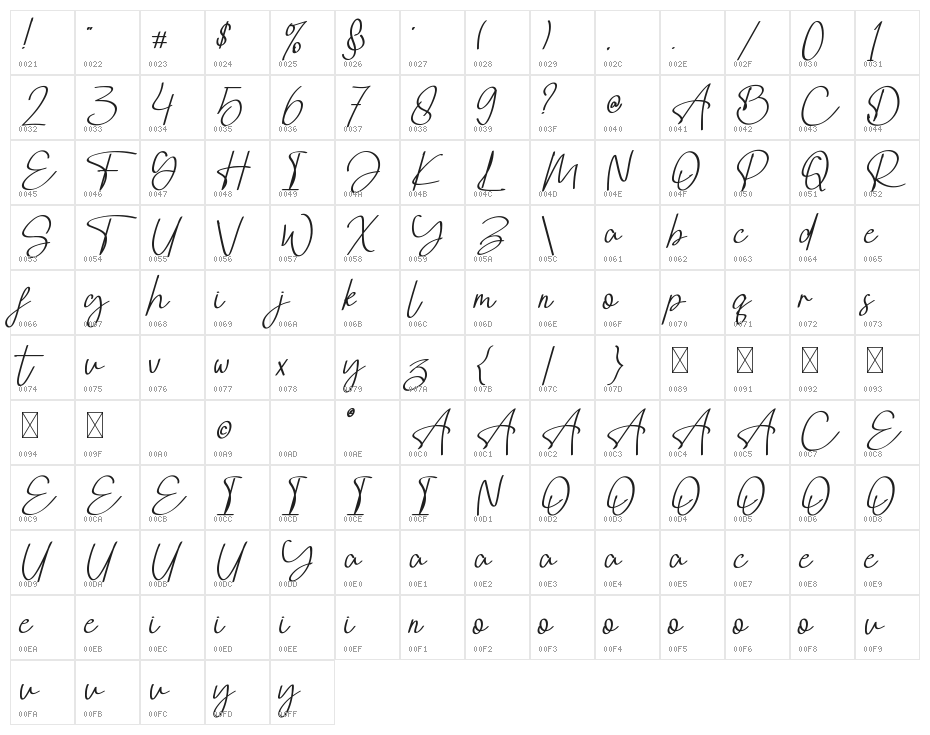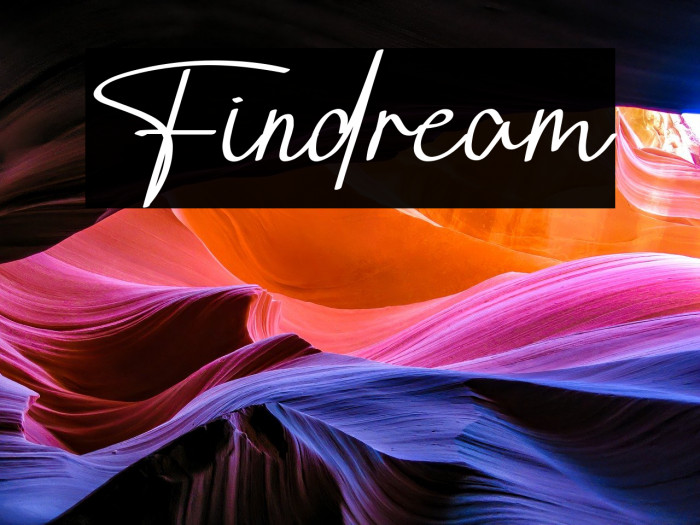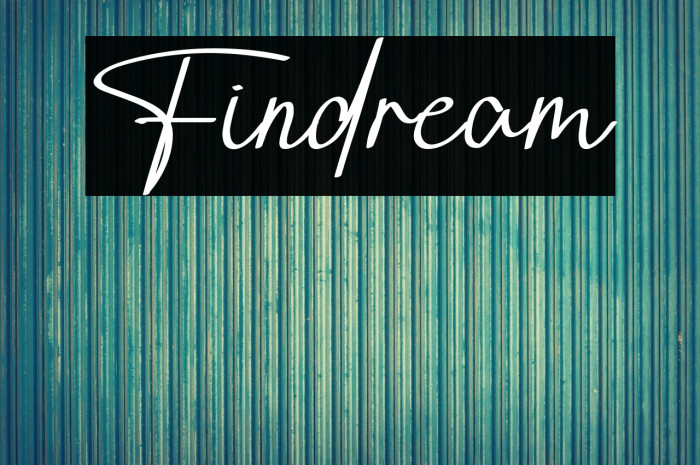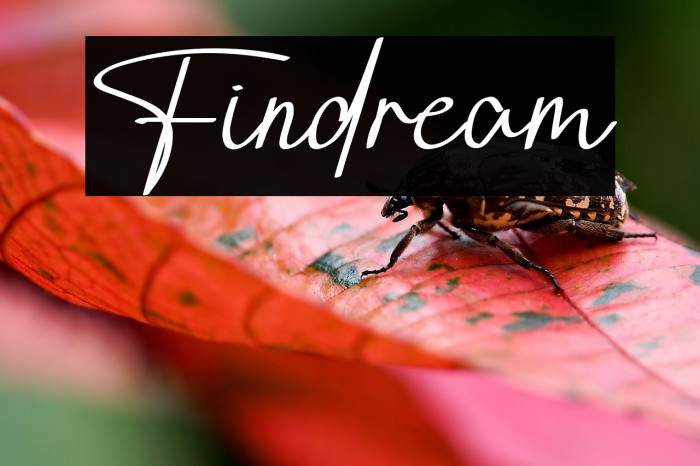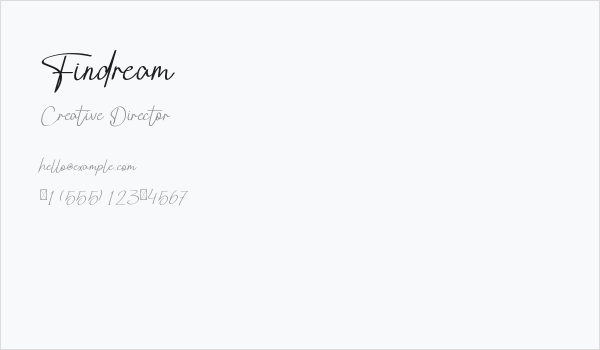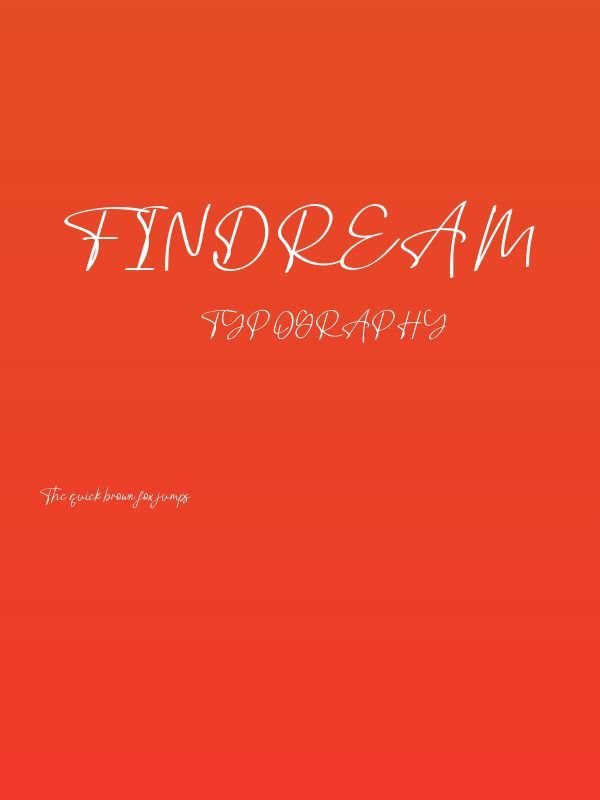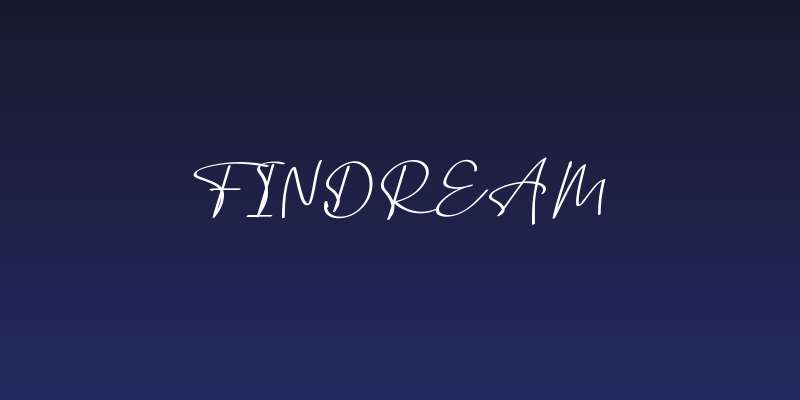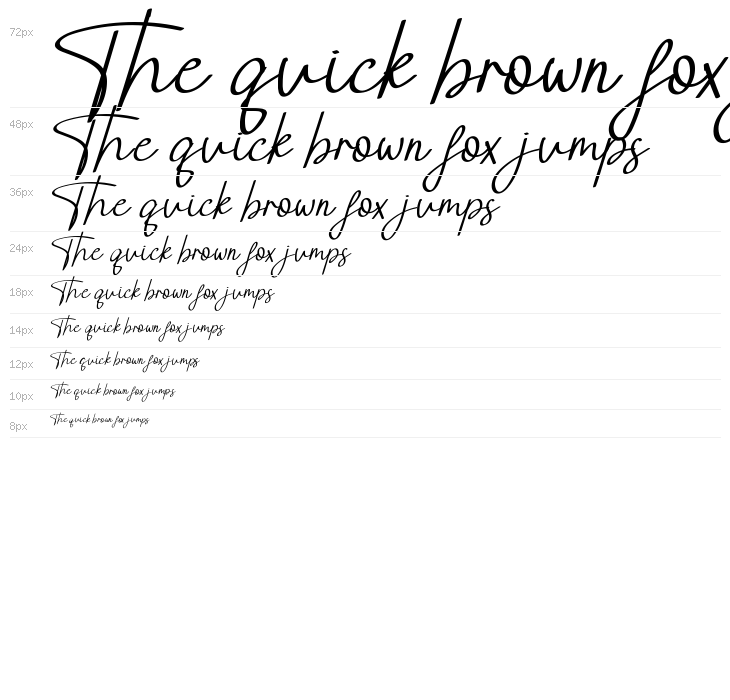
Findream Font
Findream Description
This font exhibits a fluid and elegant script style, characterized by its smooth, flowing lines and graceful curves. The uppercase letters are distinct with a slight slant, adding a dynamic and lively feel. The lowercase letters continue this fluidity, with some characters featuring loops and swashes that enhance its decorative appeal. The numerals are consistent with the script style, maintaining the same flowing aesthetic. Special characters are well-integrated, matching the overall design with a touch of flair. This font is perfect for projects that require a personal, handwritten touch, offering both sophistication and readability.
| Overall Style | Elegant, Decorative |
| Use Case | Logos, Invitations, Personal Branding |
| Proposed Projects | Ideal for wedding invitations, greeting cards, personal branding, and elegant signage. |